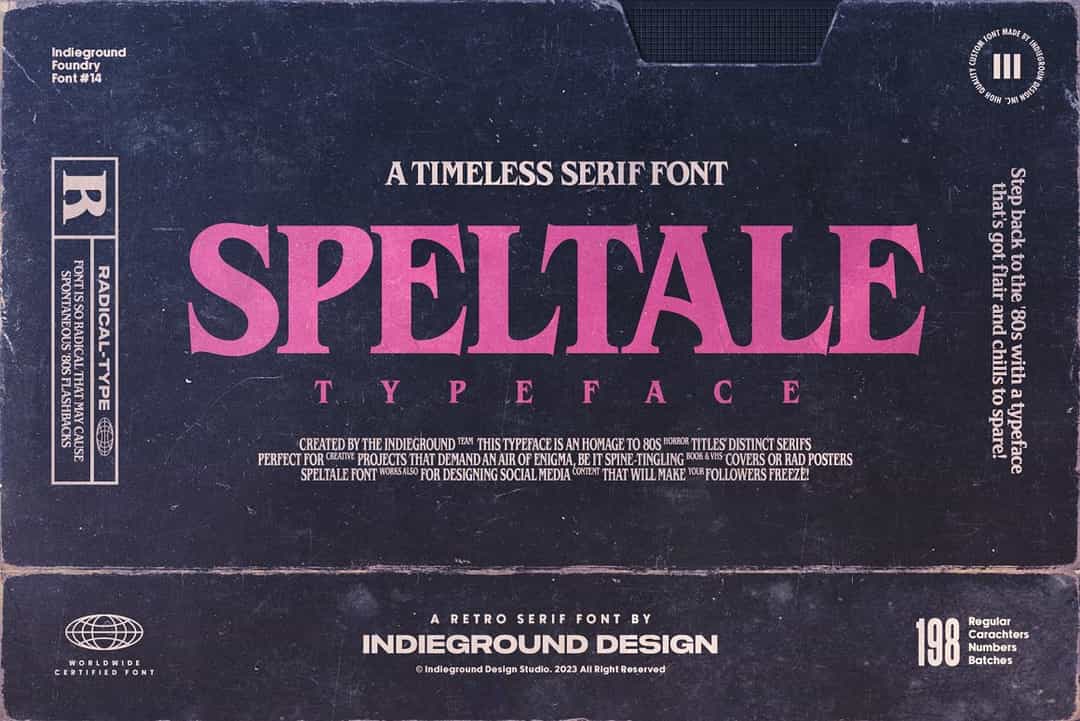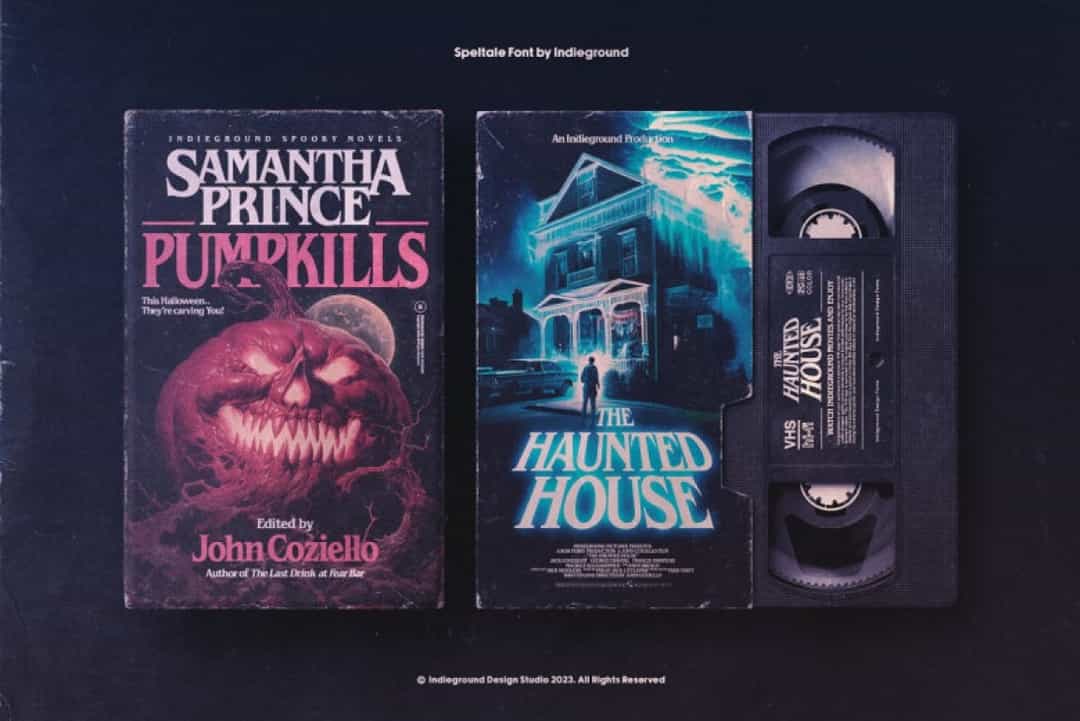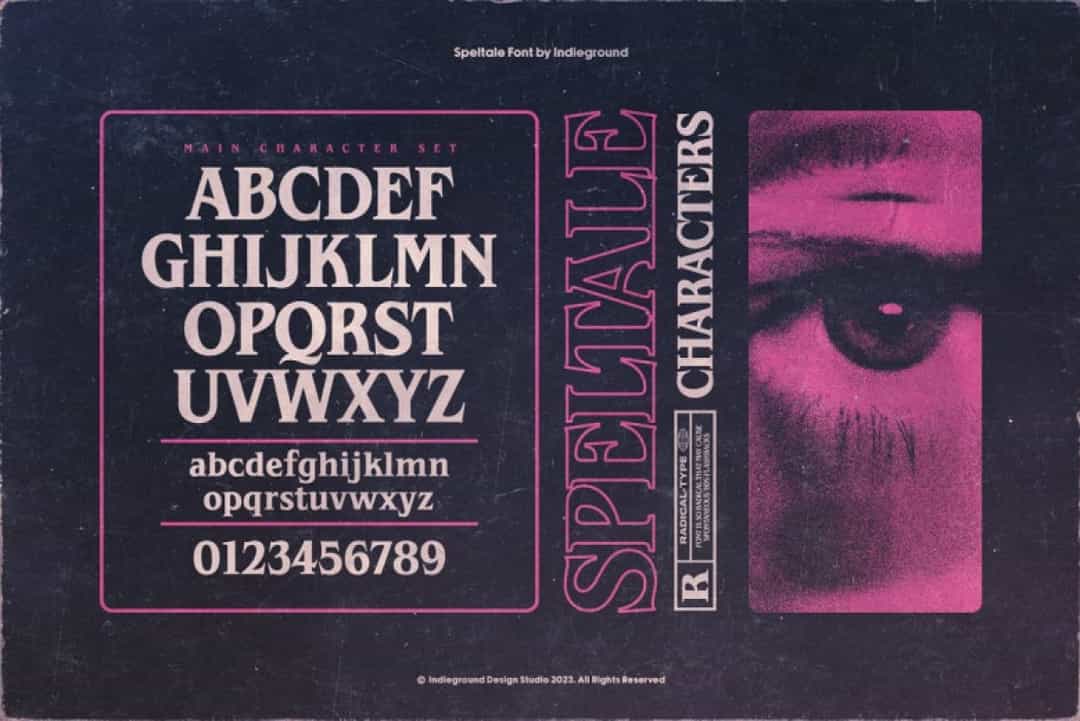
Speltale Font from Indieground combines gothic and vintage-inspired aesthetics for an eye-catching font with vintage vibes. Based off ITC Benguiat, its distinctive serifs create an unsettling vintage-influenced vibe which creates the spellbinding Speltale Font.